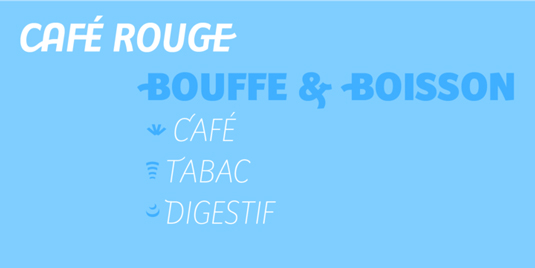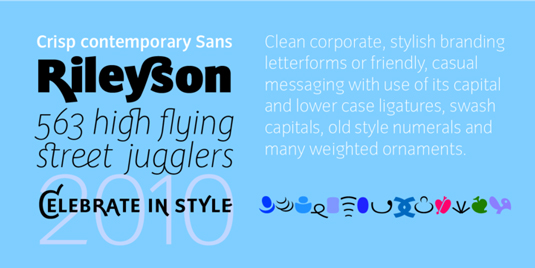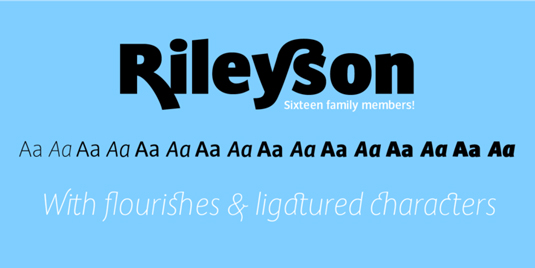
Font of the day: Rileyson
Every day we showcase the best fonts on the web. Today it's Rileyson by Adrian Williams.
Rileyson by Adrian Williams
Today's typeface of choice is Rileyson by advertising typographer and type designer Adrian Williams. A crisp, contemporary sans serif, Rileyson is ideal for branding, logos and much more.